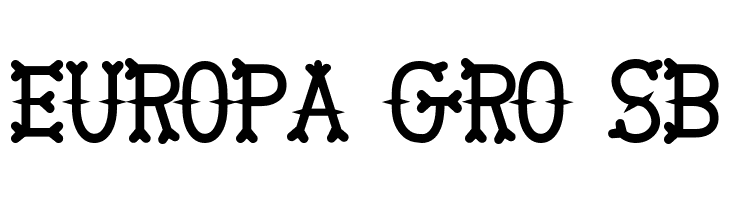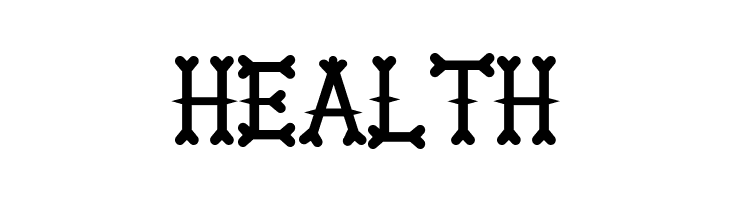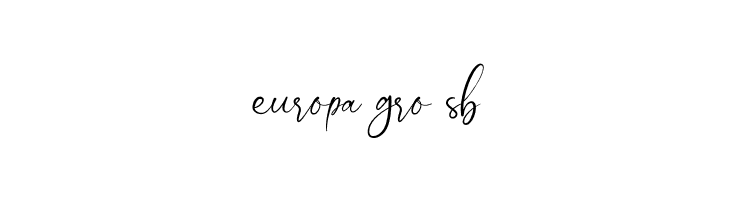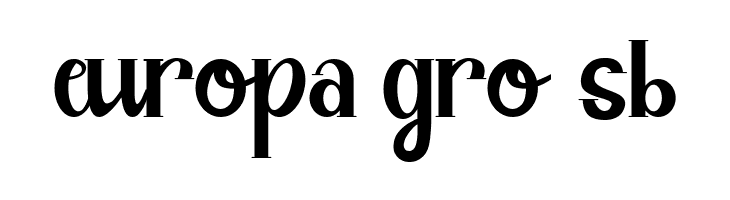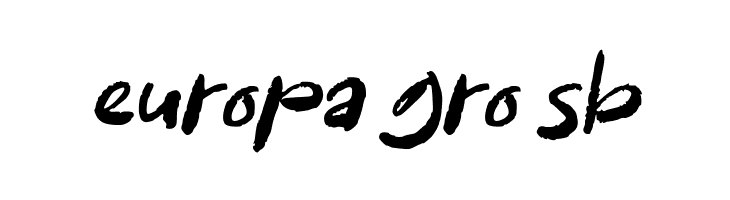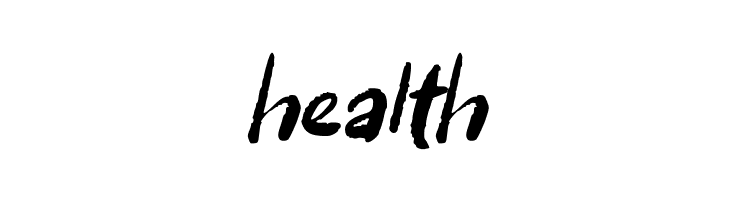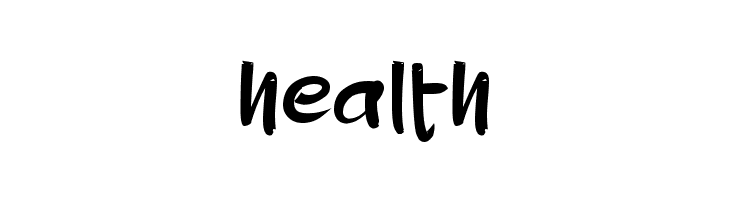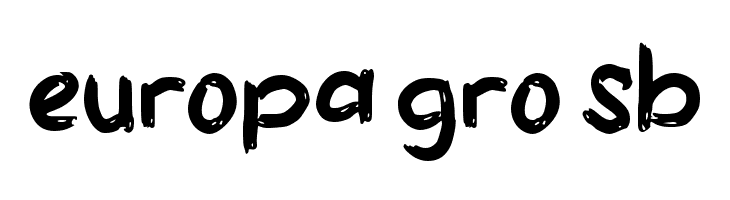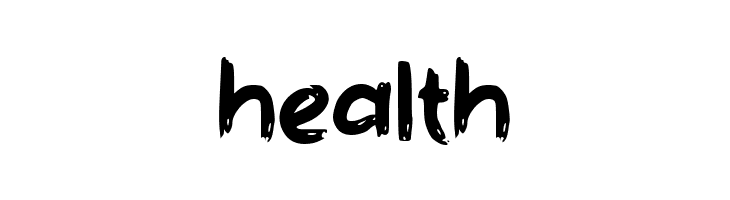
A playful and bold font with whimsical, heart-accented characters.
A dynamic, semi-bold script font with flowing, cursive strokes.
A graceful and flowing script font with a handwritten style.
A bold, hand-drawn font with an expressive, graffiti-like style.
A bold, rounded font with a modern and playful style.
A lively script font with a fluid, handwritten style and moderate stroke contrast.
A bold, industrial font inspired by bicycle chains with a rugged, mechanical look.
A bold, brush-style handwritten font with dynamic strokes.
A bold, decorative font with characters resembling bones, perfect for thematic designs.